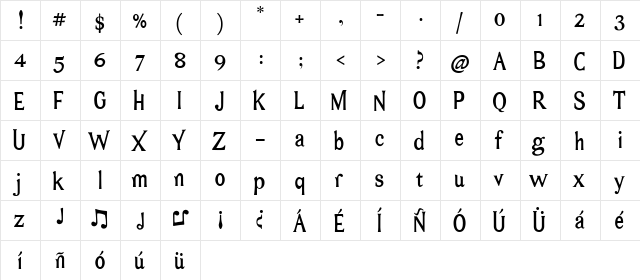
Bromato Regular
| Foundry | Manuel Mercuri |
| Designer | Manuel Merc |
Design Context for Bromato Typeface
Bromato offers clean, dependable letterforms without strong stylistic allegiance, making it a practical choice for designers who need flexibility.